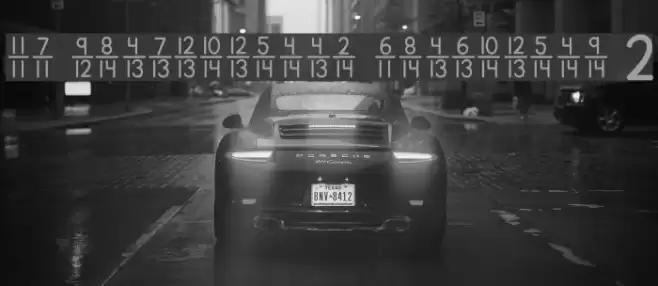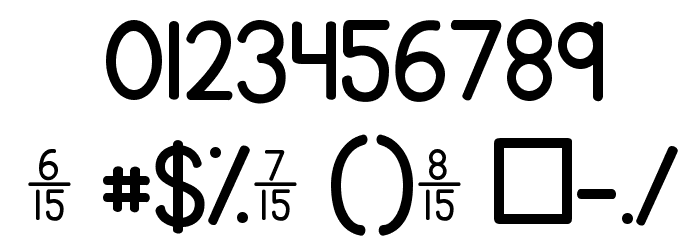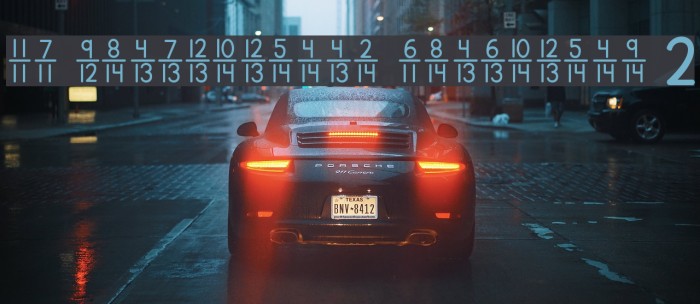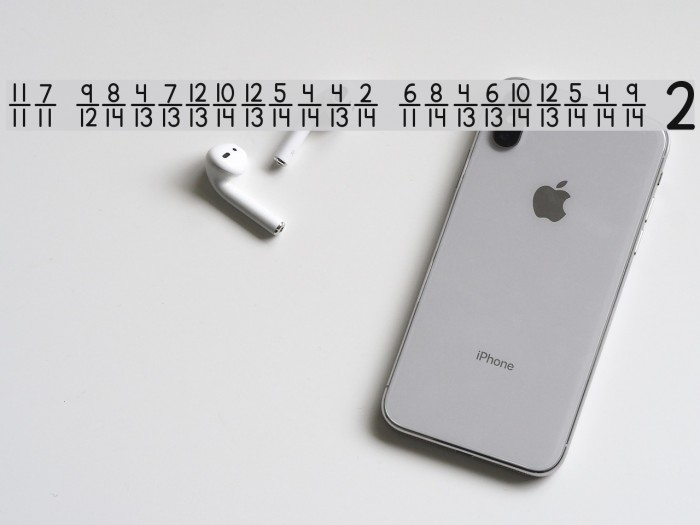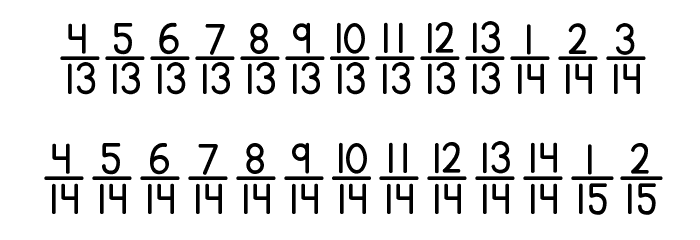
KG Traditional Fractions 2 Font
KG Traditional Fractions 2 Description
This font is designed specifically for displaying fractions in a clear and readable manner. The numerals are aligned with a horizontal line separating the numerator and the denominator, ensuring easy readability. The style is clean and modern, with a sans-serif appearance that emphasizes clarity and simplicity. The digits are evenly spaced, and the overall design is consistent, making it ideal for mathematical and technical documents. The special characters complement the numerals, maintaining the same visual style and ensuring uniformity across different uses.
A modern sans-serif font designed for clear and readable fraction display from Uncategorized fonts.
- Proposed Projects: Ideal for educational materials, technical documents, and any project requiring precise fraction representation.
- Use Case: Technical documents, Educational materials